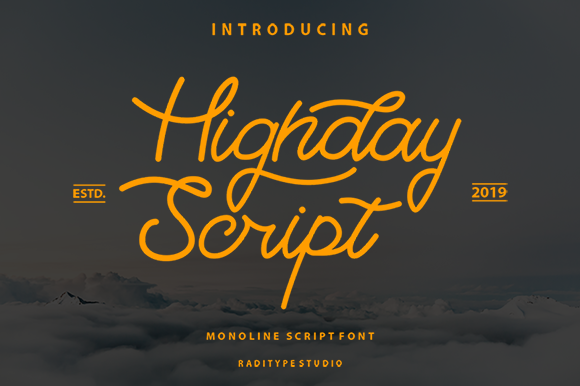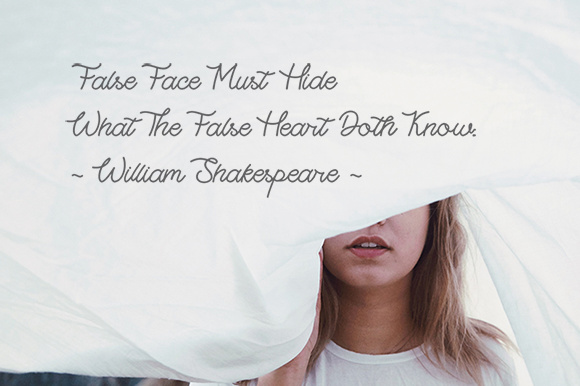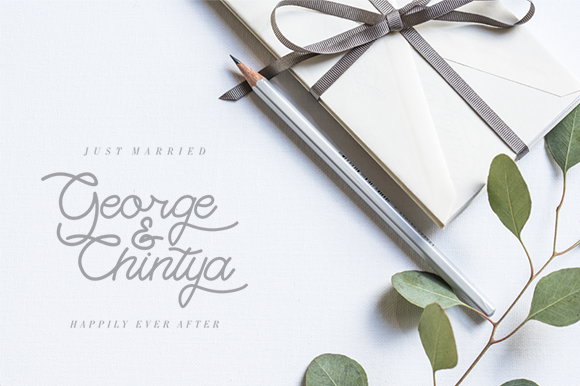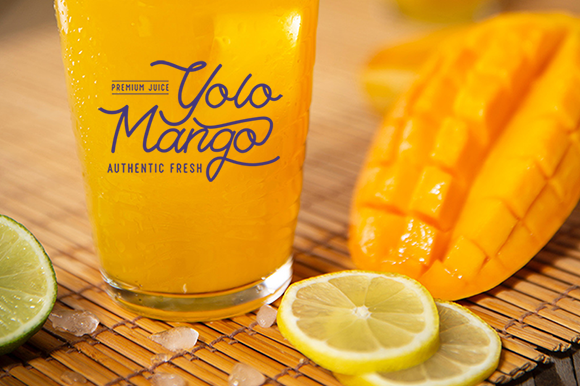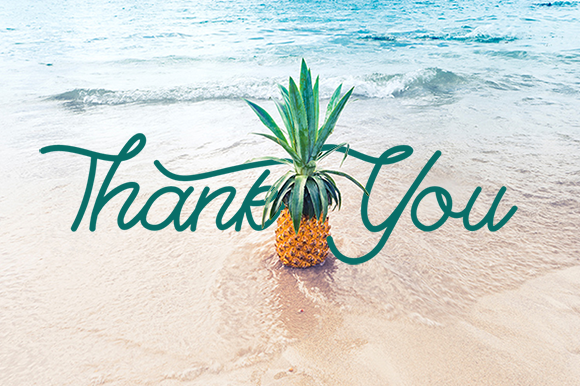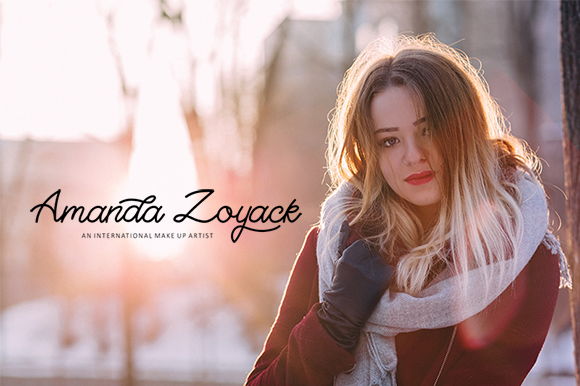
Highday Script Font
About Highday Script Font
Highday is a stunning handwritten font with a beautiful twist. It will add an authentic spark to any craft project!